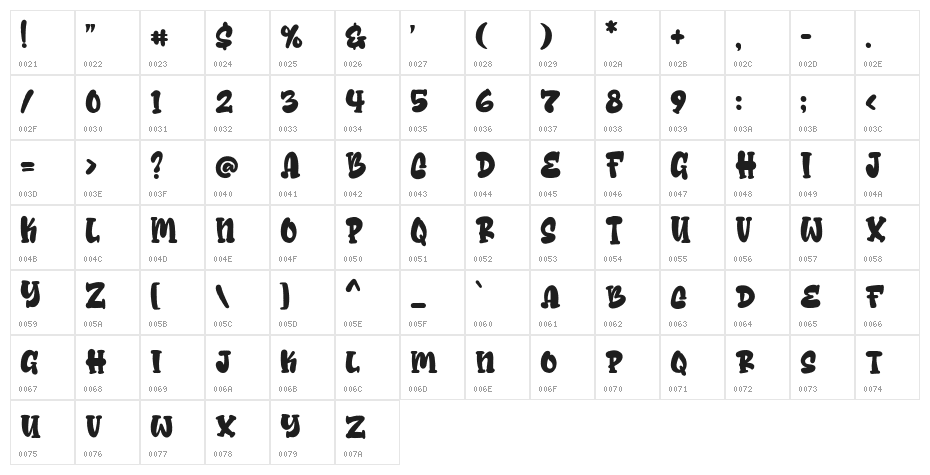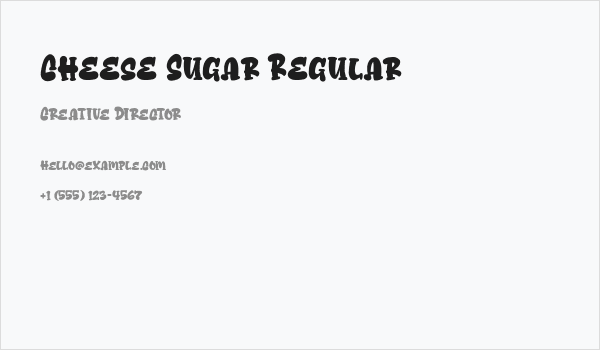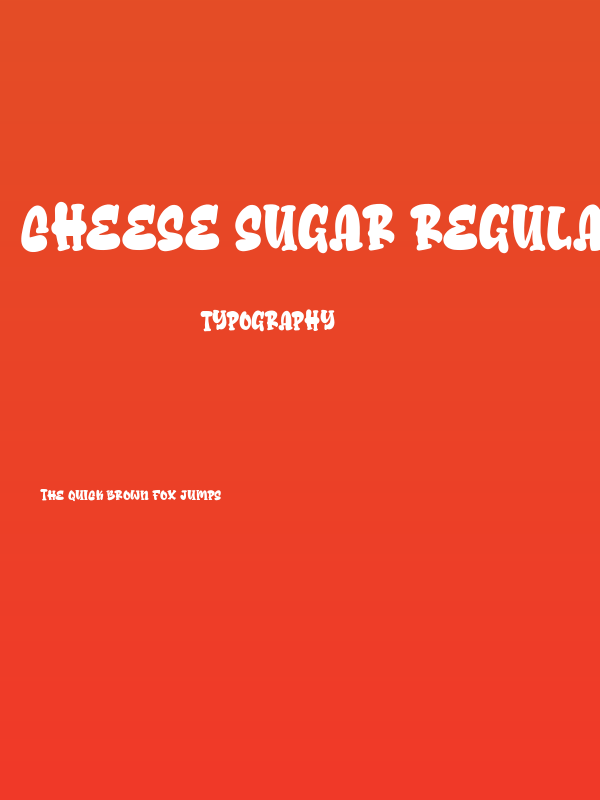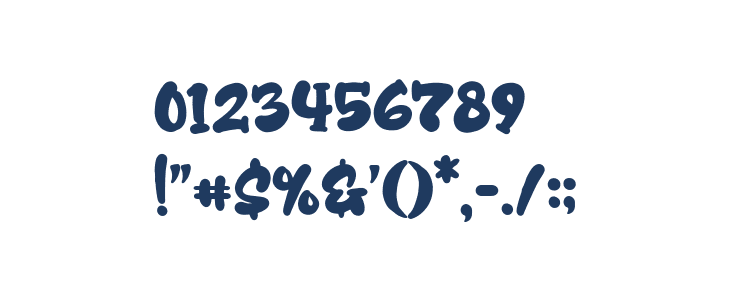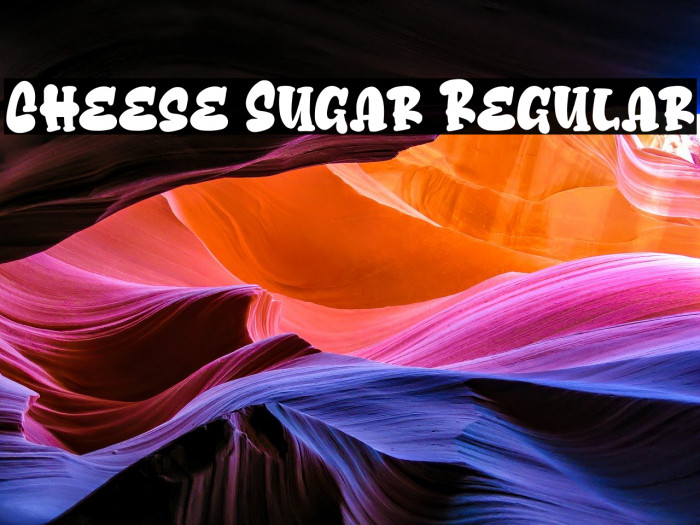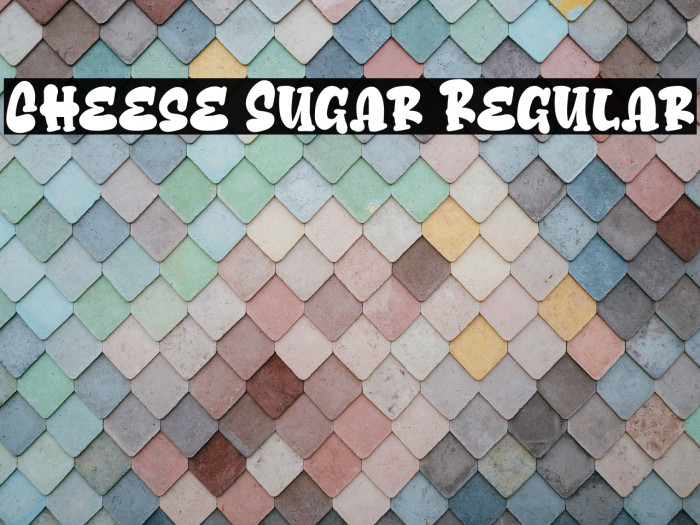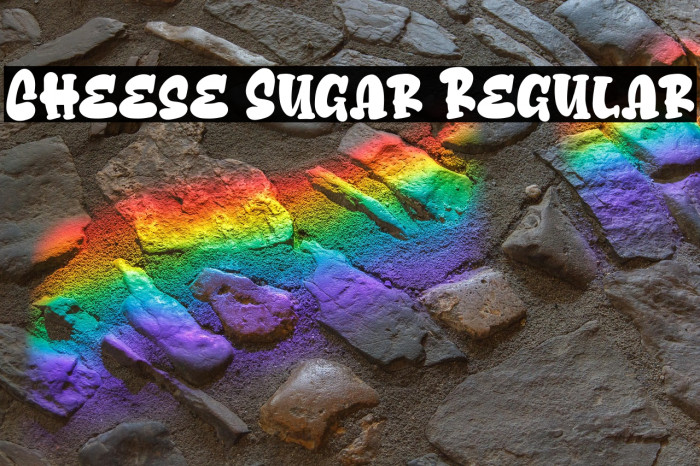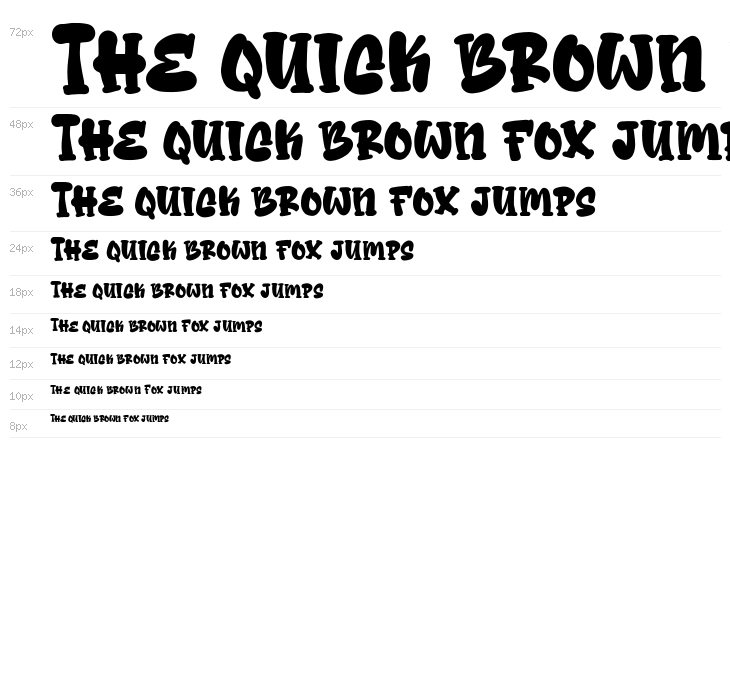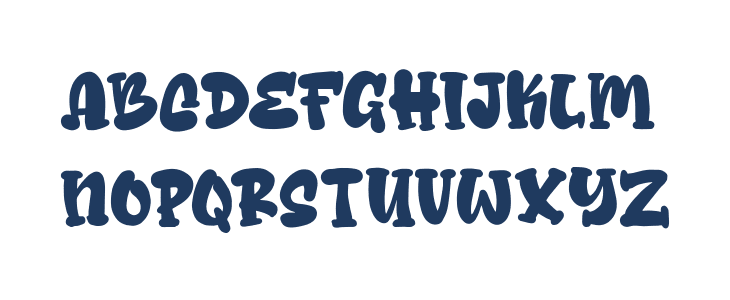
Cheese Sugar Regular Font
Cheese Sugar Regular Description
This font features a playful and bold style with thick, rounded strokes that give it a bubbly and friendly appearance. The characters are highly stylized with exaggerated curves and a slightly uneven baseline, adding to its whimsical charm. The uppercase and lowercase letters maintain a consistent weight, while the numbers and special characters blend seamlessly with the overall design. This font exudes a sense of fun and creativity, making it ideal for projects that require a lively and engaging visual impact.